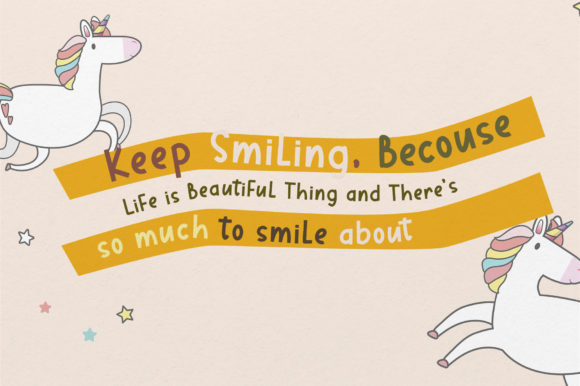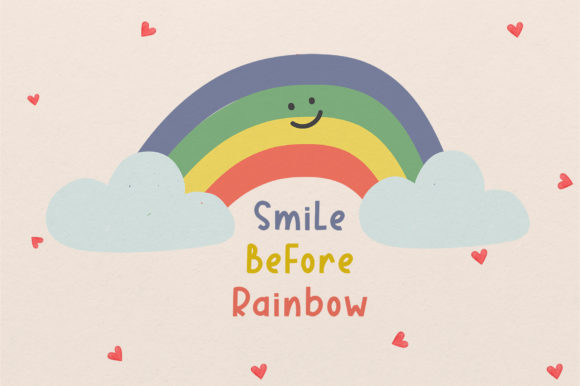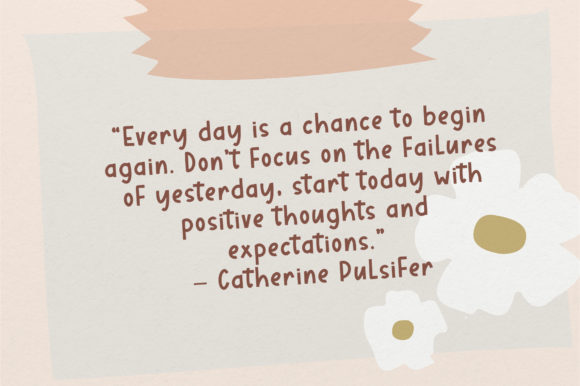
Ring Angle Font – Free Download
Introduction to Ring Angle Font
Ring Angle is a cheery and fun display font, featuring charming characters.
Add this font to your most creative ideas, and notice how it makes them stand out .
Key Features of Ring Angle Font
Why Choose Ring Angle Font?
Ring Angle Font offers exceptional quality and versatility, making it a valuable addition to your design toolkit. Whether you’re creating for personal projects or commercial use, Ring Angle Font delivers professional results.